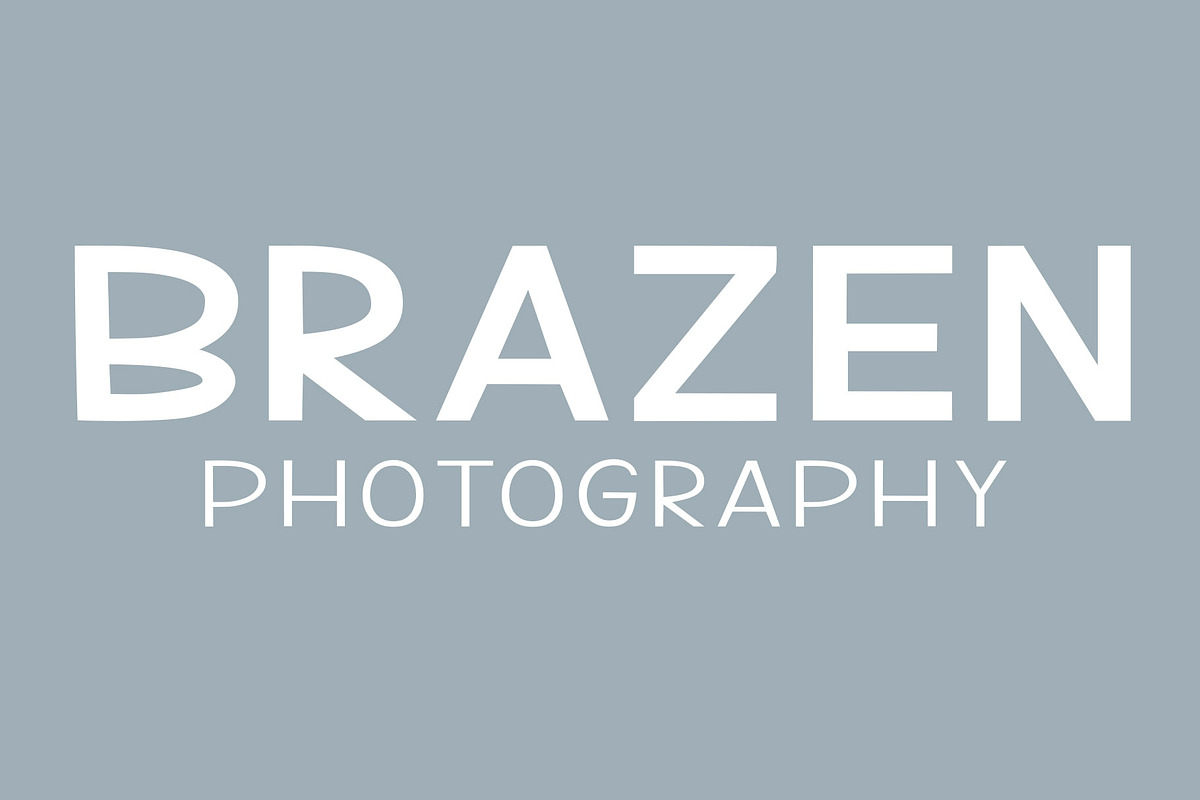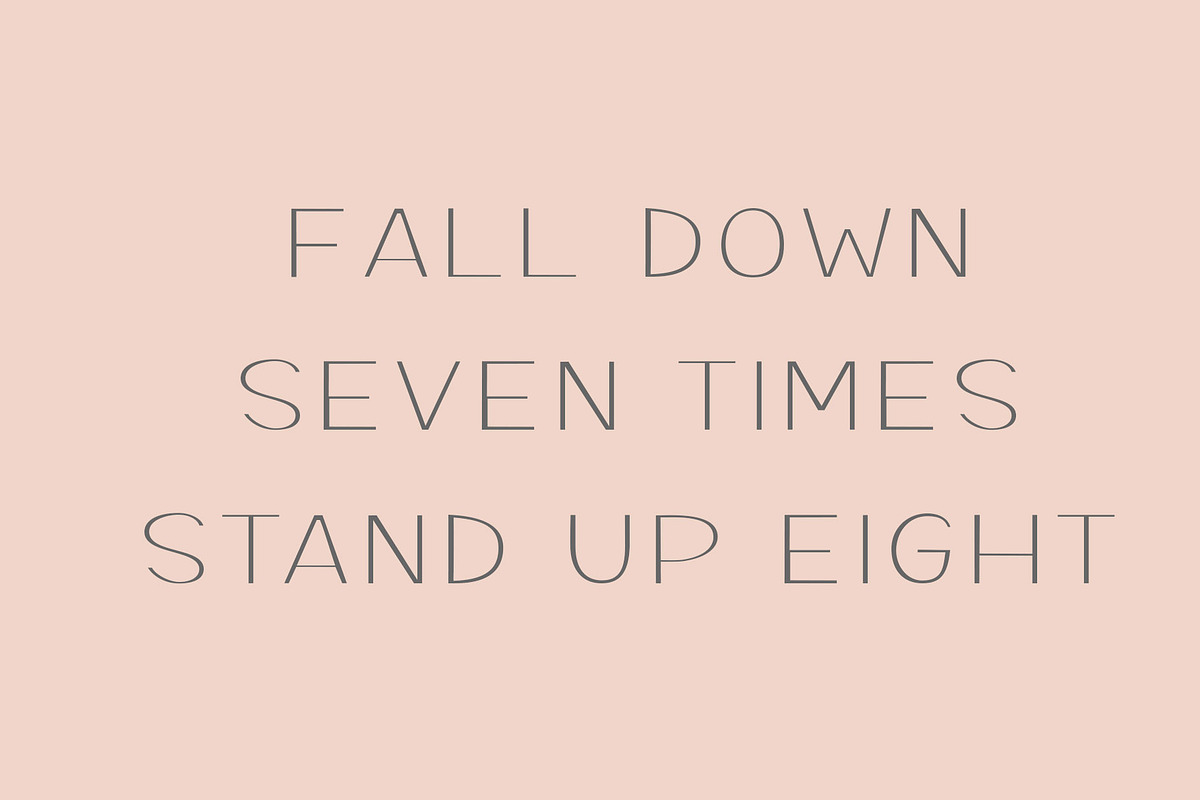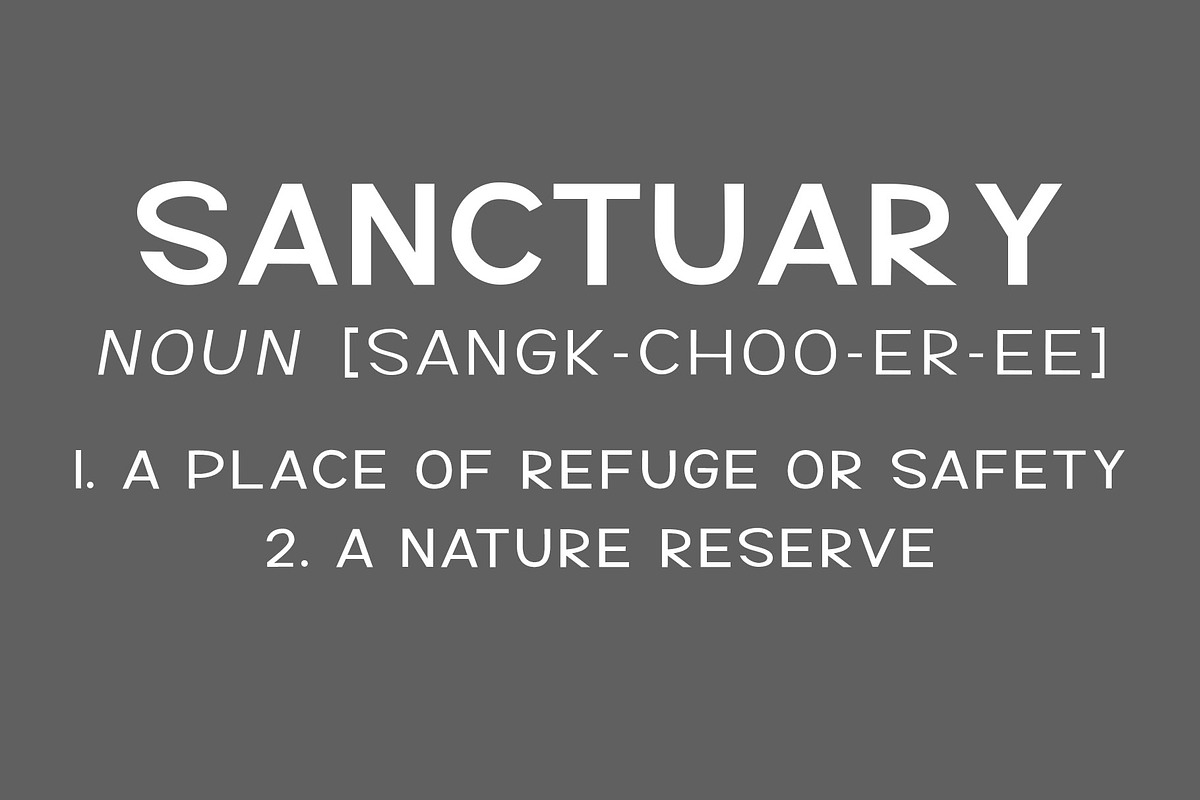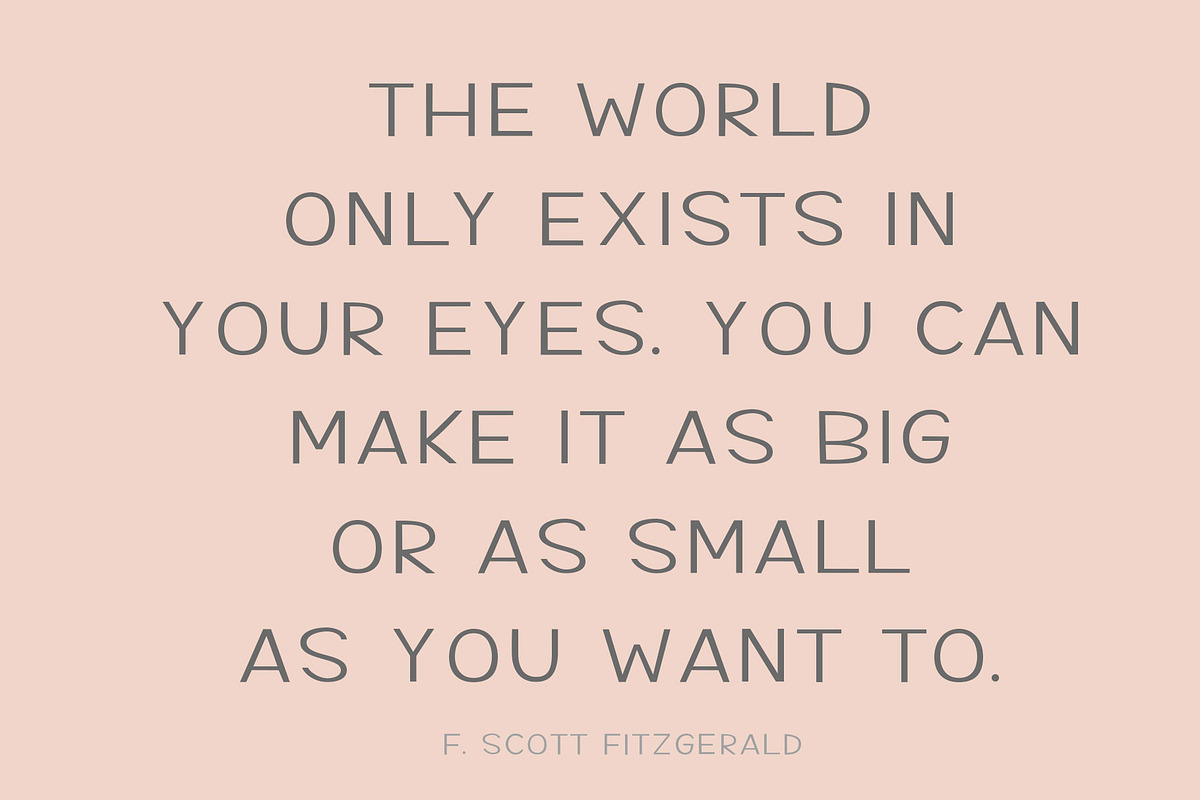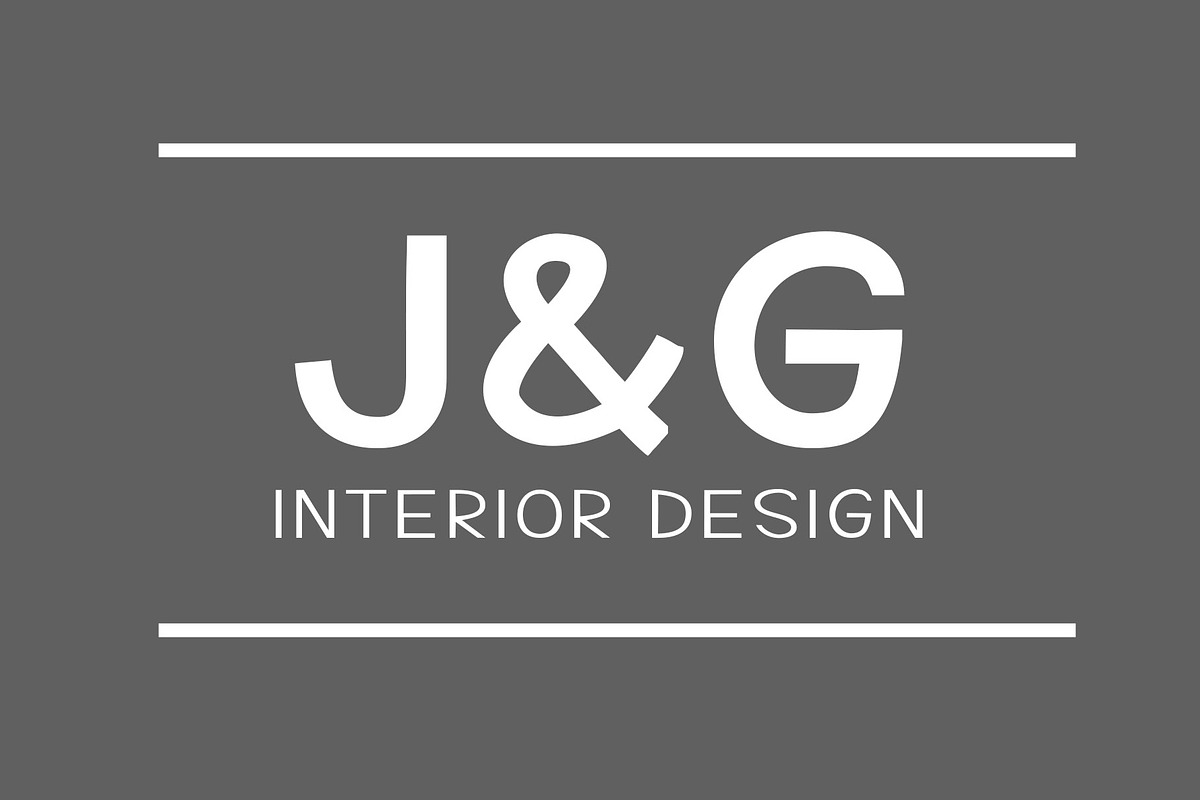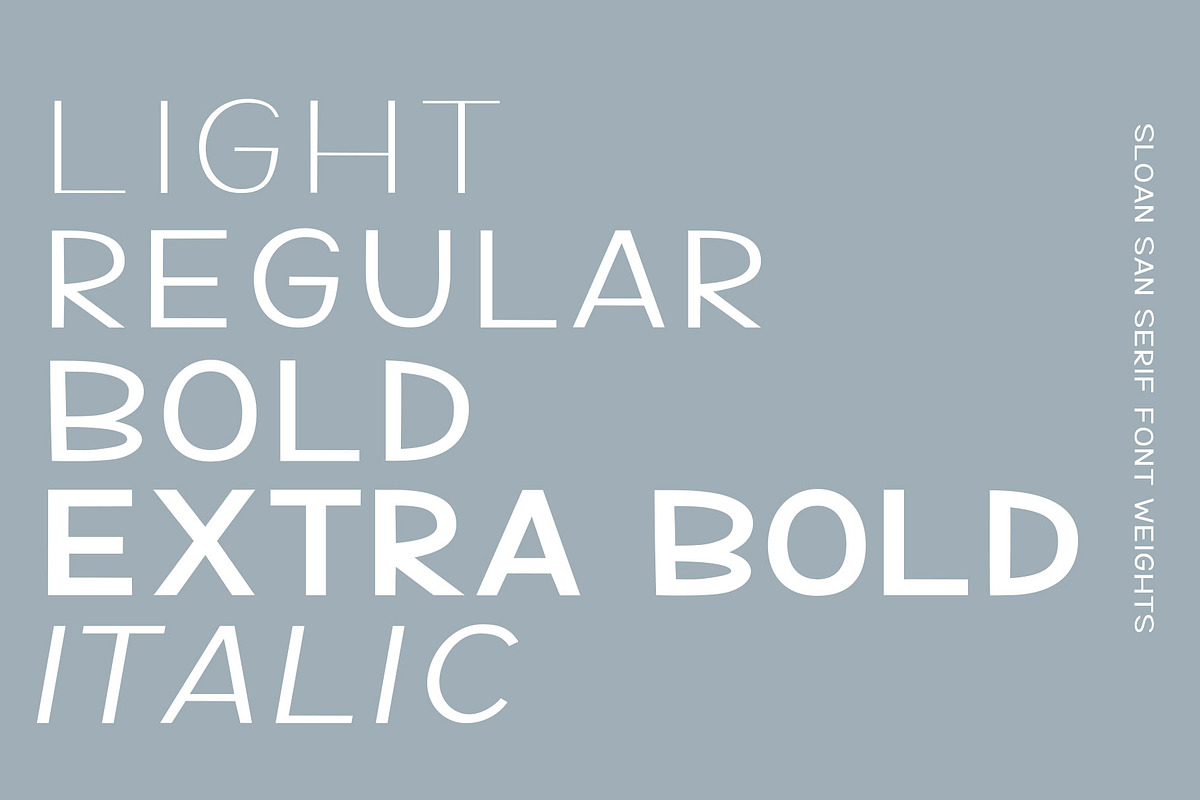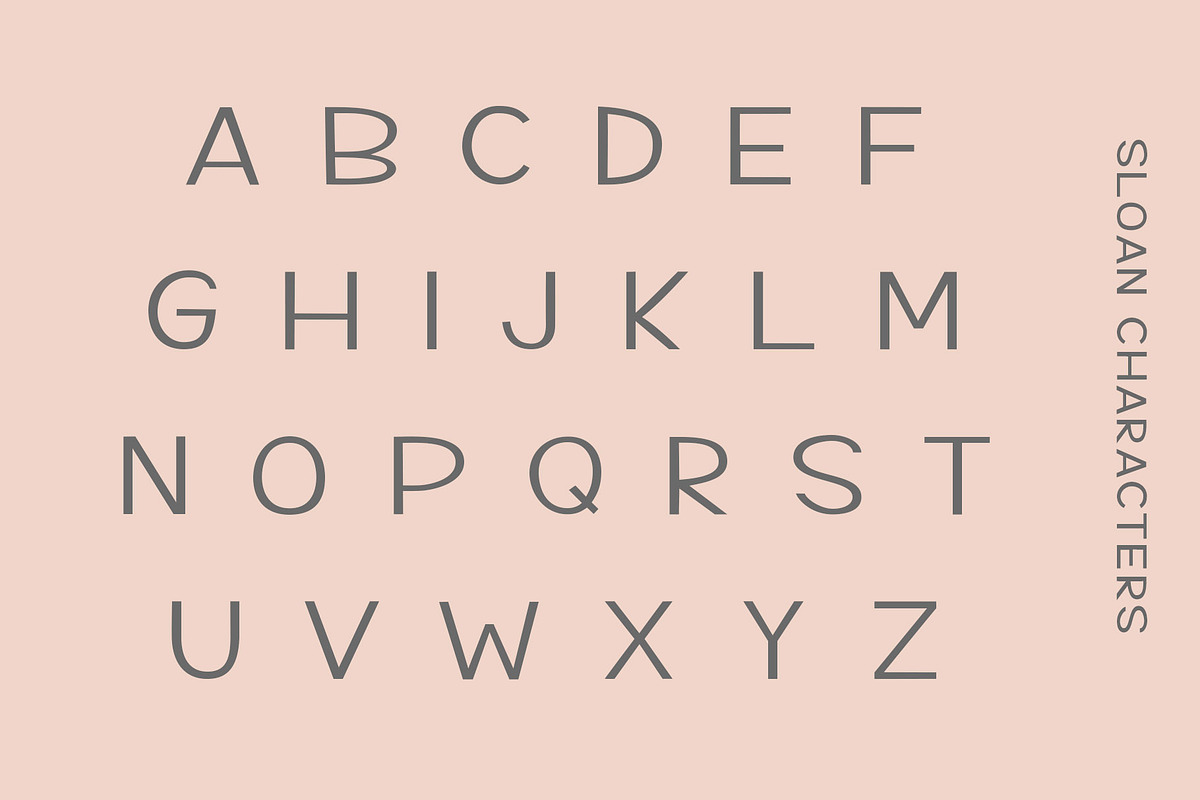
Sloan-5 fonts included
Sloan is an all caps handwritten sans serif font that comes in four weights, and italics. Started as handwriting and was carefully edited to become a font that can be used for all your needs. From headlines, to invitations, to logos Sloan is the missing piece to complete any design!
Includes 5 fonts! Sloan Regular, Italic, Light, Bold and Extra Bold.